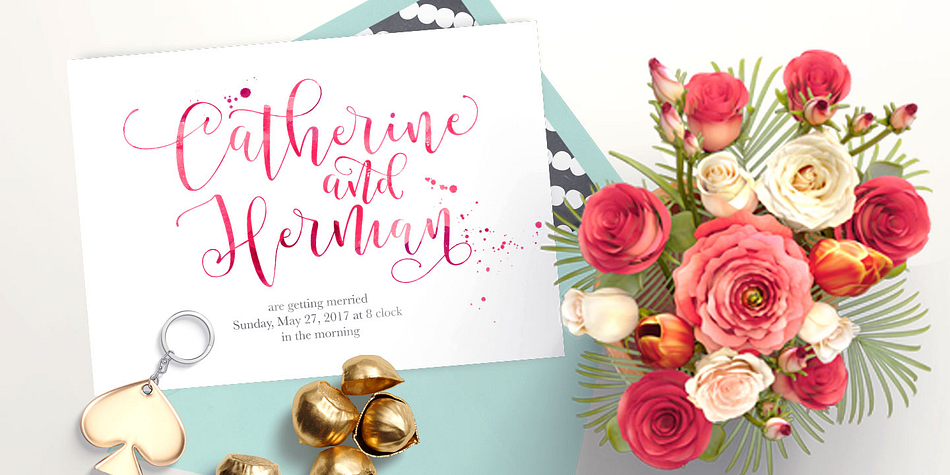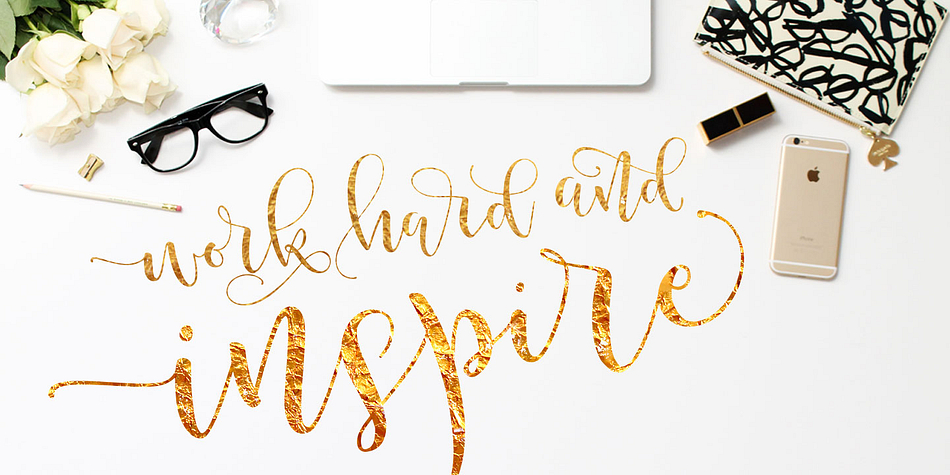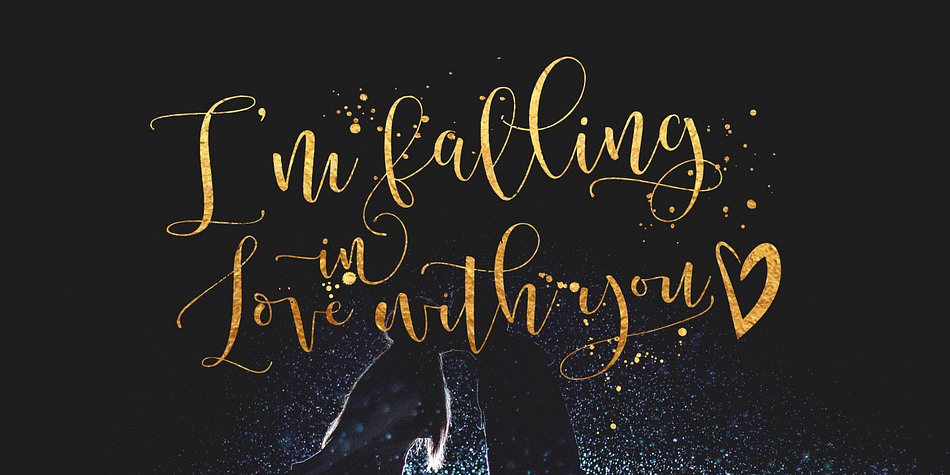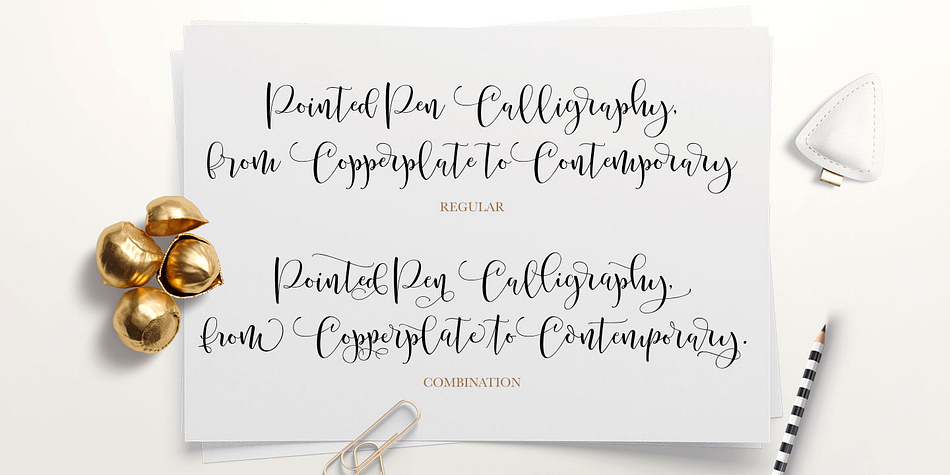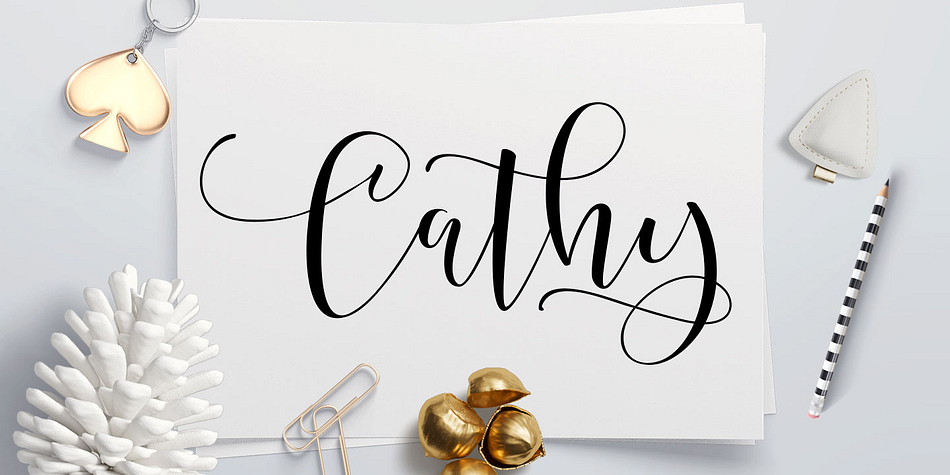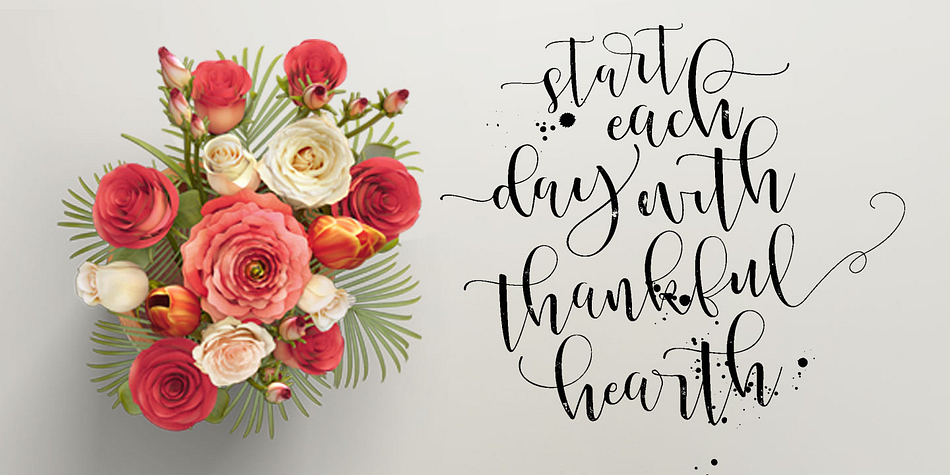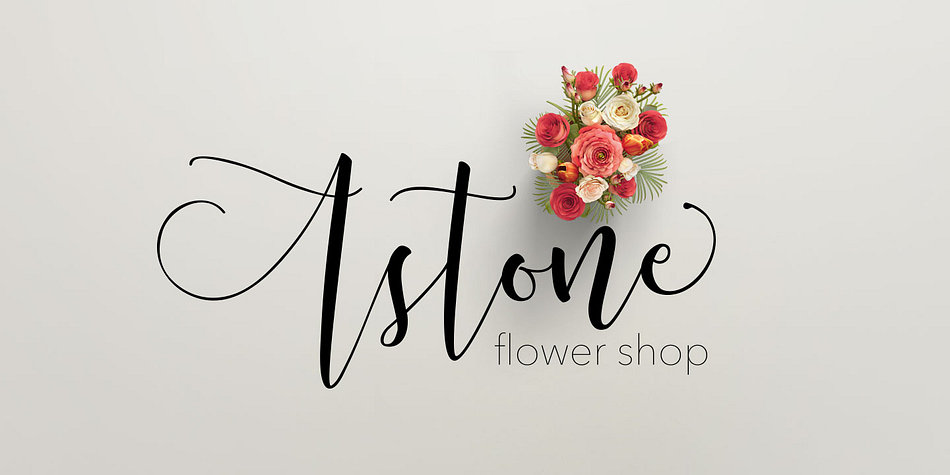
Cathy is a script and modern calligraphy font family. This typeface has six styles and was published by mysunday.
Cathy is a handcrafted script font. The font includes a plethora of glyphs, initial and terminal letters, alternates, ligatures and has given PUA unicode (specially coded fonts).
Cathy can be used for various purposes: headings, signatures, logos, wedding invitations, t-shirts, signage, labels, posters, badges etc.